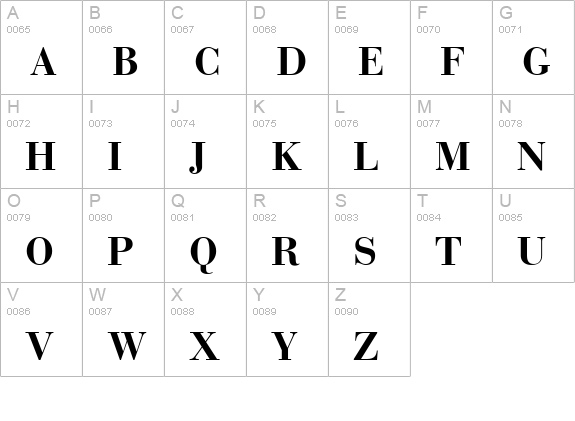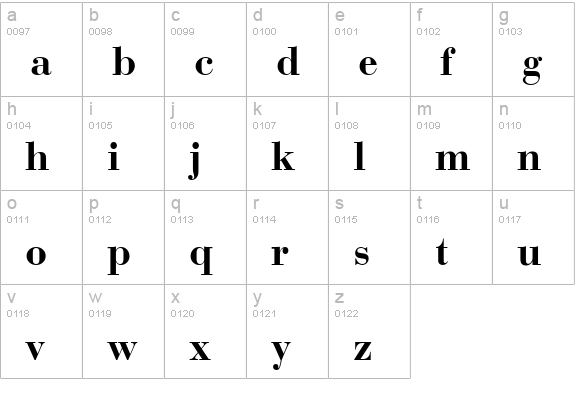
Bodoni Recut OldStyle SSi Bold is a strong, high-contrast variant in the Bodoni typeface family \xE2\x80\x94 well suited to headlines, attention-grabbing titles, and strong calls-to-action.
Bodoni Recut OldStyle SSi Bold font is a timeless and elegant typeface that exudes sophistication and class. With its bold and distinct letterforms, this font is perfect for making a statement in headlines, titles, and branding materials. The traditional yet modern design of Bodoni Recut OldStyle SSi Bold font makes it versatile and suitable for a wide range of design projects. The best part is that Bodoni Recut OldStyle SSi Bold font is available for free download at FontsMarket.com. This means that you can easily access and use this beautiful font in your projects without any cost. Whether you are a graphic designer, a student, or a small business owner, Bodoni Recut OldStyle SSi Bold font offers a high-quality and professional option for your typography needs. Add a touch of elegance and sophistication to your designs with Bodoni Recut OldStyle SSi Bold font, and make a lasting impression on your audience. Download it for free today and elevate your design projects to the next level.